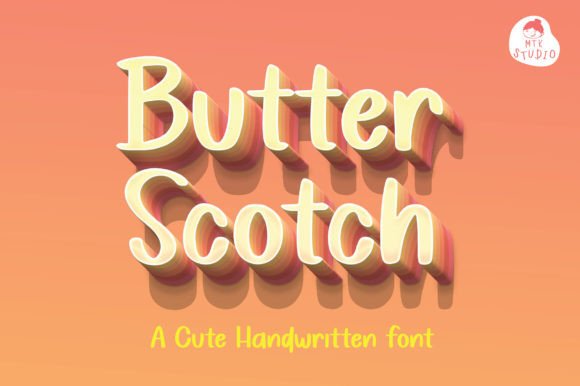
Introducing Butterscotch: The Sweetest Handwritten Font for Your Creative Projects
Are you looking for a font that can add a touch of warmth and playfulness to your designs? Look no further than Butterscotch, a cute and casual handwritten font that’s perfect for a variety of creative projects. With its delightful curls and endearing charm, Butterscotch is sure to make your designs stand out and leave a lasting impression.
The Story Behind Butterscotch Font
Butterscotch is a carefully crafted handwritten font that’s designed to evoke a sense of nostalgia and whimsy. Its playful curls and loops are reminiscent of childhood memories, making it perfect for projects that require a touch of innocence and charm. Whether you’re designing a greeting card, a children’s book, or a whimsical brand identity, Butterscotch is the perfect choice.
Key Features of Butterscotch Font
So, what makes Butterscotch font so special? Here are some of its key features:
- Playful Curls and Loops: Butterscotch font features playful curls and loops that add a touch of whimsy to any design.
- Handwritten Charm: Butterscotch has a distinctly handwritten feel that’s perfect for creating personal and endearing designs.
- Cute and Casual: Butterscotch is a cute and casual font that’s perfect for a variety of creative projects, from greeting cards to children’s books.
- Easy to Read: Despite its playful nature, Butterscotch is easy to read, making it perfect for body text and headings.
Use Cases for Butterscotch Font
Butterscotch font is perfect for a variety of creative projects, including:
- Greeting Cards: Add a touch of warmth and personality to your greeting cards with Butterscotch font.
- Children’s Books: Butterscotch font is perfect for children’s books, with its playful curls and loops adding a touch of whimsy to your story.
- Whimsical Branding: Create a unique and memorable brand identity with Butterscotch font, perfect for businesses that want to stand out.
- Social Media Graphics: Add a touch of personality to your social media graphics with Butterscotch font, perfect for creating engaging and shareable content.
Tips for Using Butterscotch Font
Here are some tips for getting the most out of Butterscotch font:
- Use it with a Sans-Serif Font: Pair Butterscotch font with a sans-serif font for a modern and playful look.
- Experiment with Colors: Butterscotch font looks great in a variety of colors, so don’t be afraid to experiment and find the perfect hue for your design.
- Use it for Headings and Titles: Butterscotch font is perfect for headings and titles, adding a touch of personality and whimsy to your design.
The Benefits of Using Handwritten Fonts like Butterscotch
Handwritten fonts like Butterscotch have a number of benefits, including:
- Adding Personality: Handwritten fonts add a touch of personality and whimsy to your designs, making them more engaging and memorable.
- Creating Emotional Connections: Handwritten fonts can create an emotional connection with your audience, making them feel more connected to your brand or message.
- Standing Out: Handwritten fonts like Butterscotch can help your designs stand out in a crowded marketplace, making them more noticeable and attention-grabbing.
In conclusion, Butterscotch font is a delightful and charming handwritten font that’s perfect for a variety of creative projects. With its playful curls and loops, endearing charm, and easy-to-read design, Butterscotch is sure to add a touch of warmth and personality to your designs. Whether you’re designing a greeting card, a children’s book, or a whimsical brand identity, Butterscotch font is the perfect choice.
- Font Type: Handwritten
- Font Style: Cute, Casual
- Q: What is Butterscotch font?